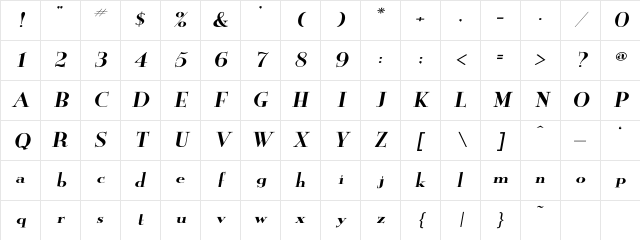
NewOrderContIt Regular
Design Context for NewOrderContIt
NewOrderContIt is a composed and adaptable typeface that performs quietly and consistently across a wide range of design contexts.